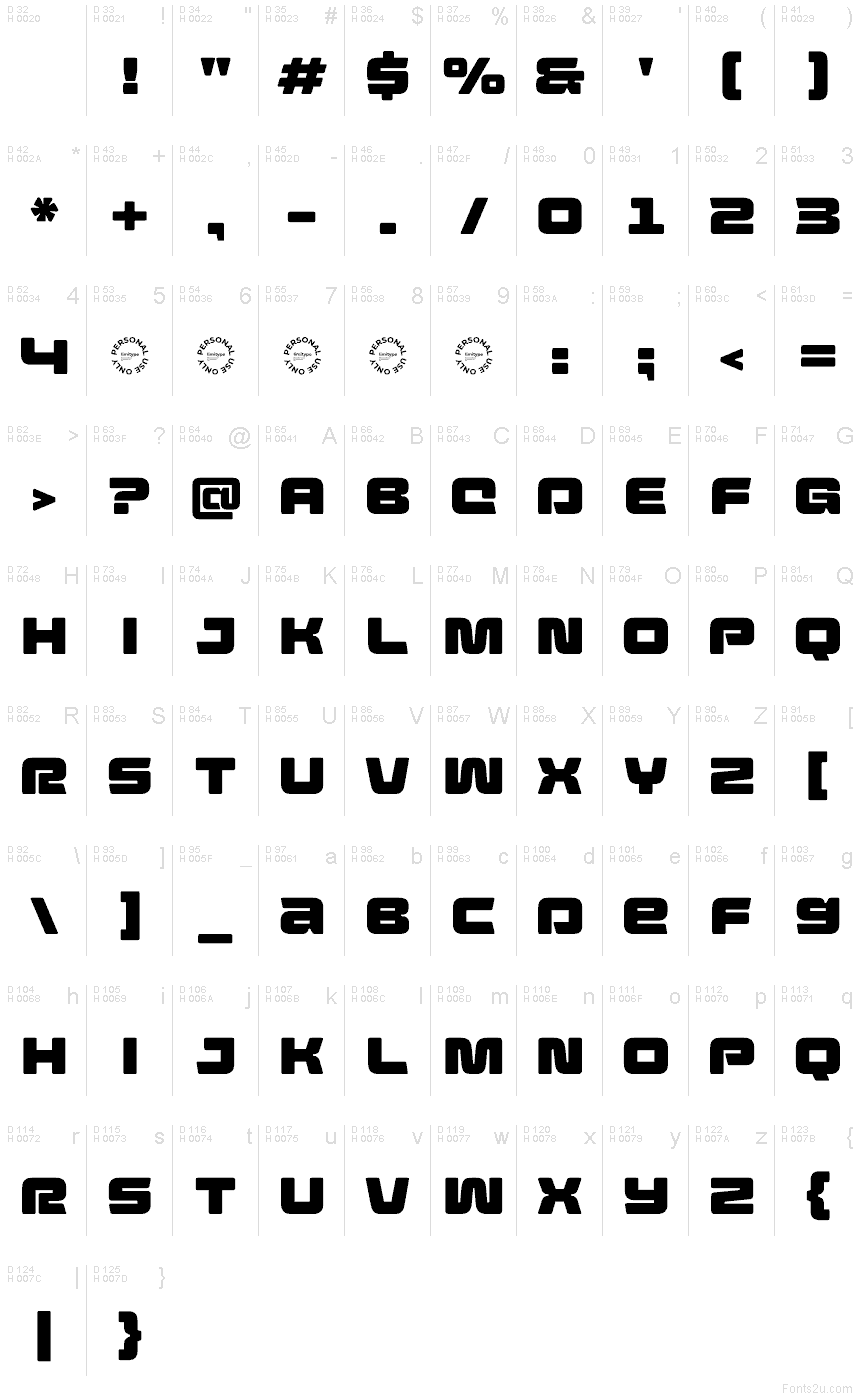
Gerion Demo
Gerion font by Limitype is a free bold futuristic display font. Built from chunky, rounded rectangles with precise inner cuts, it merges soft corners with monolithic weight for a clean, tech-forward punch. The tunnel-like counters and consistent stroke widths create a steady, neon-ready rhythm that holds up at massive sizes without turning muddy.
Using Gerion, headlines snap into place for gaming logos, sci‑fi posters, tech event branding, e‑sports visuals, packaging, and motion graphics. This free font thrives on tight tracking and big scale; pair it with a light, neutral grotesk for body copy to let its blocky forms breathe. Gerion’s modular geometry brings instant futurism with zero fuss.